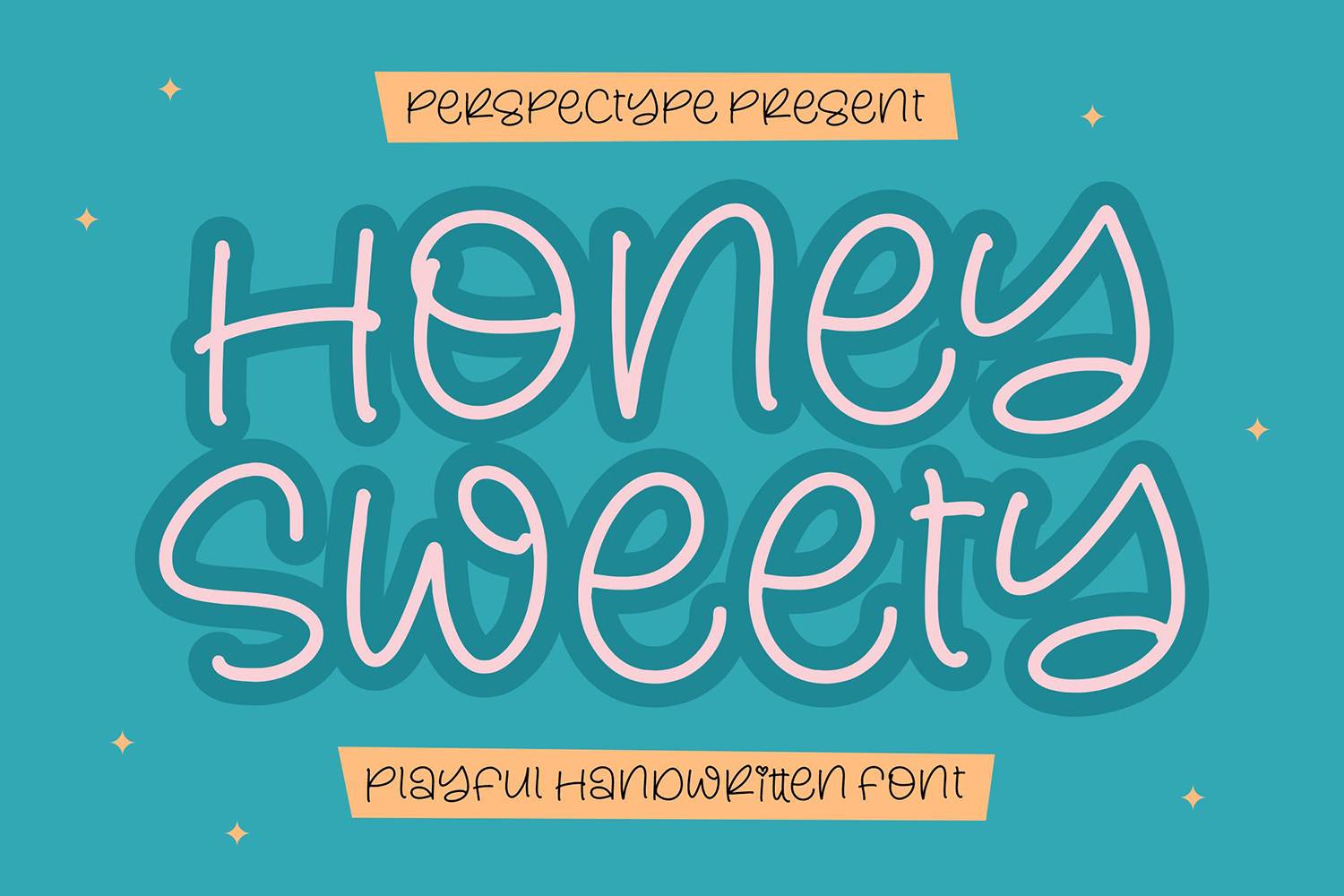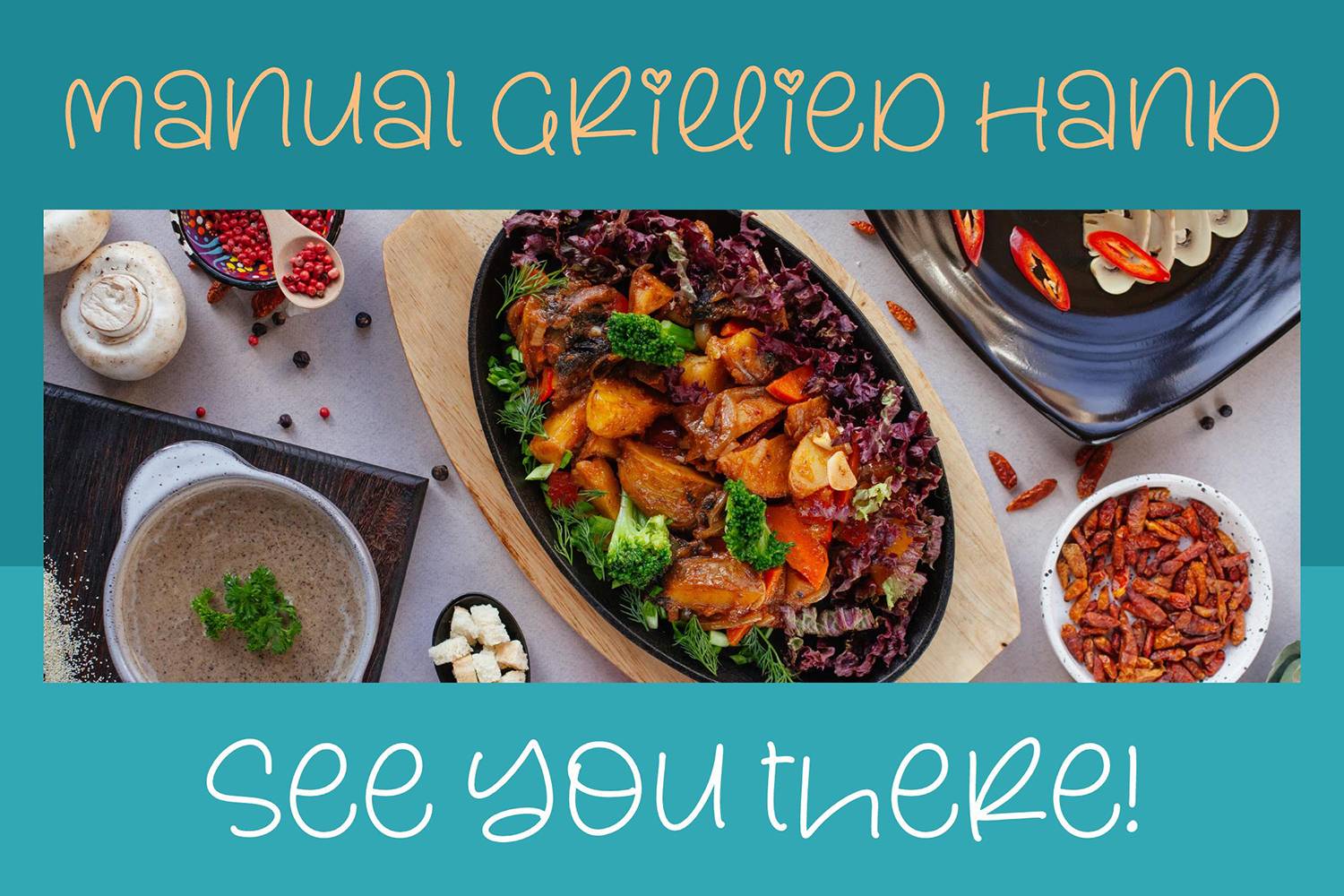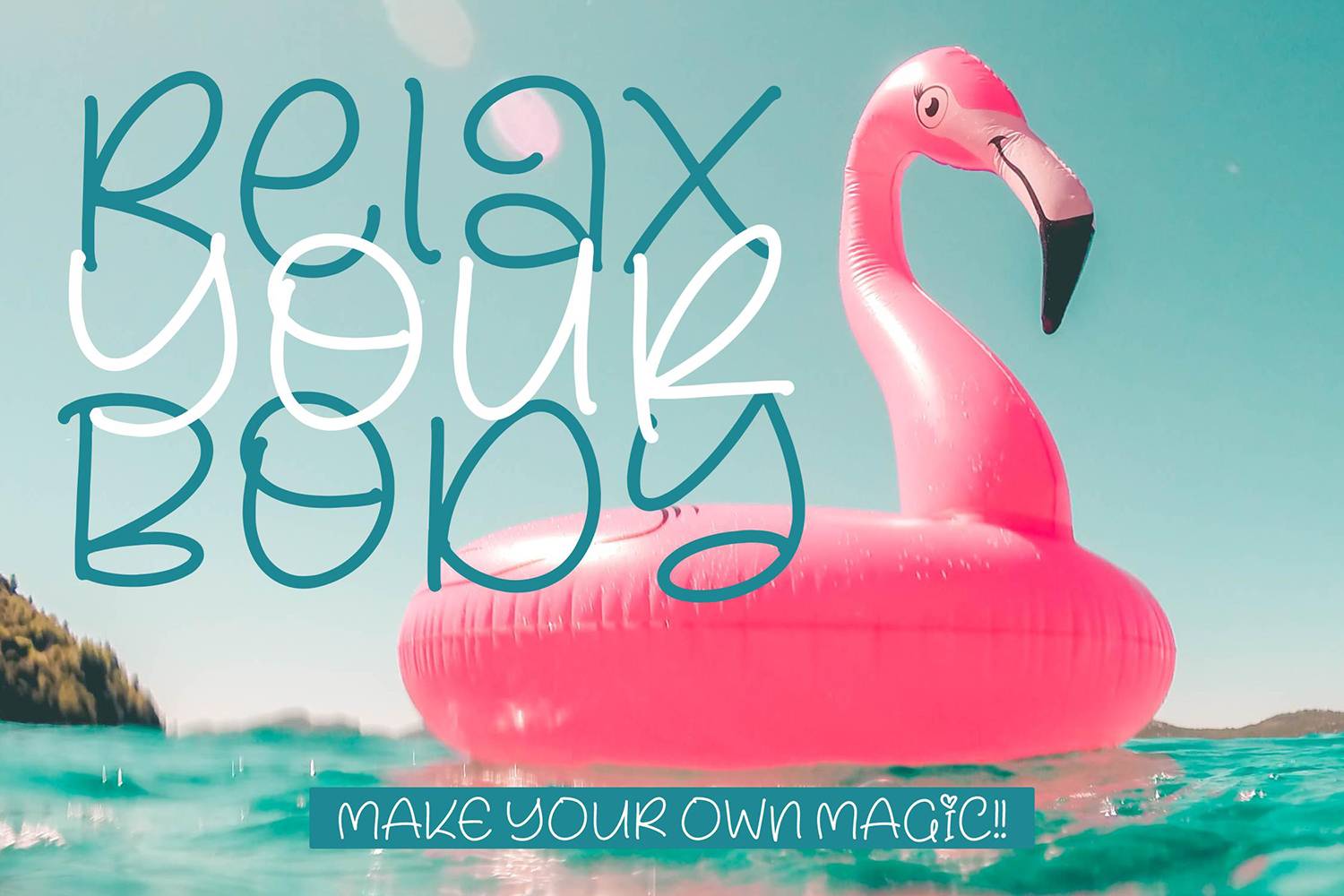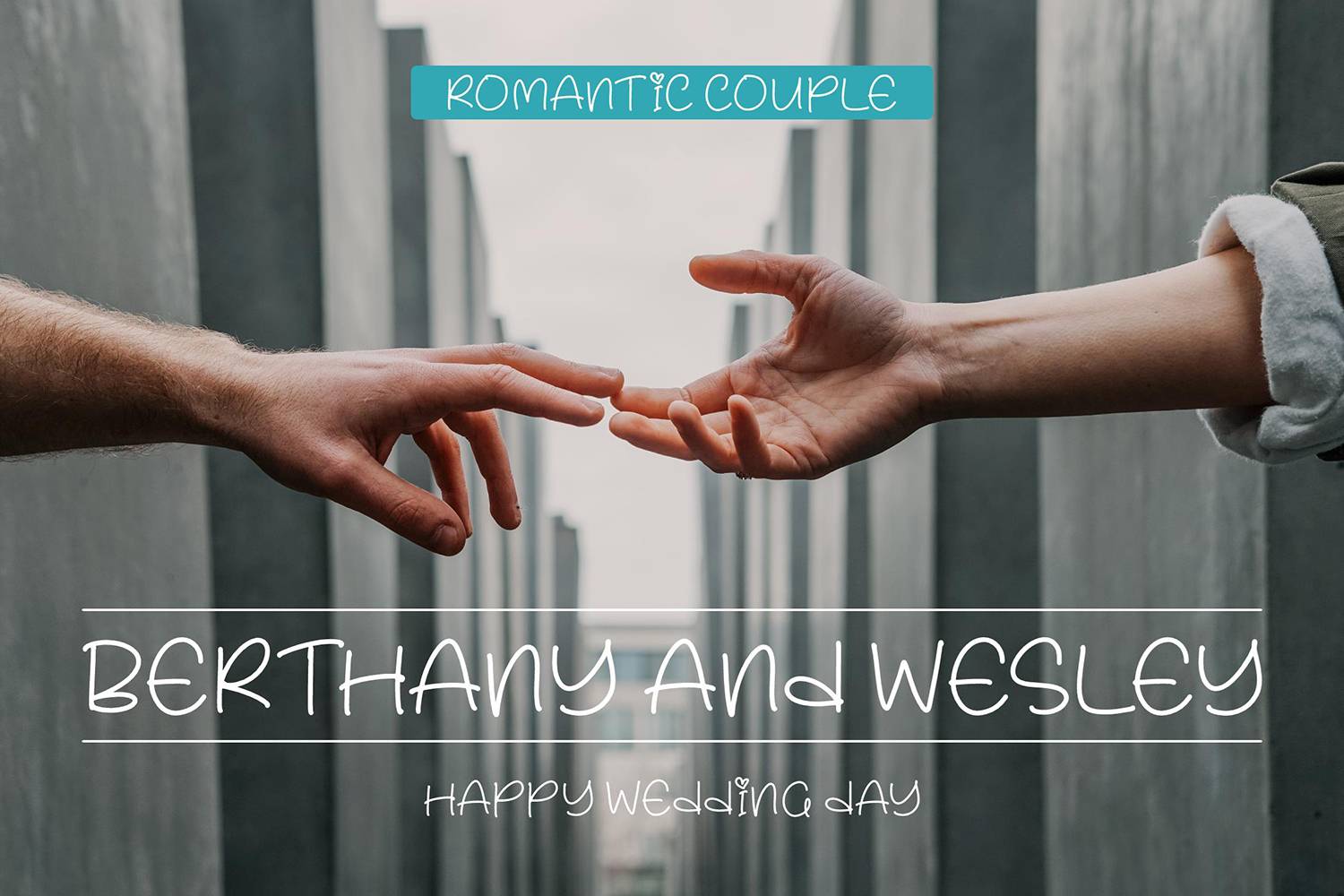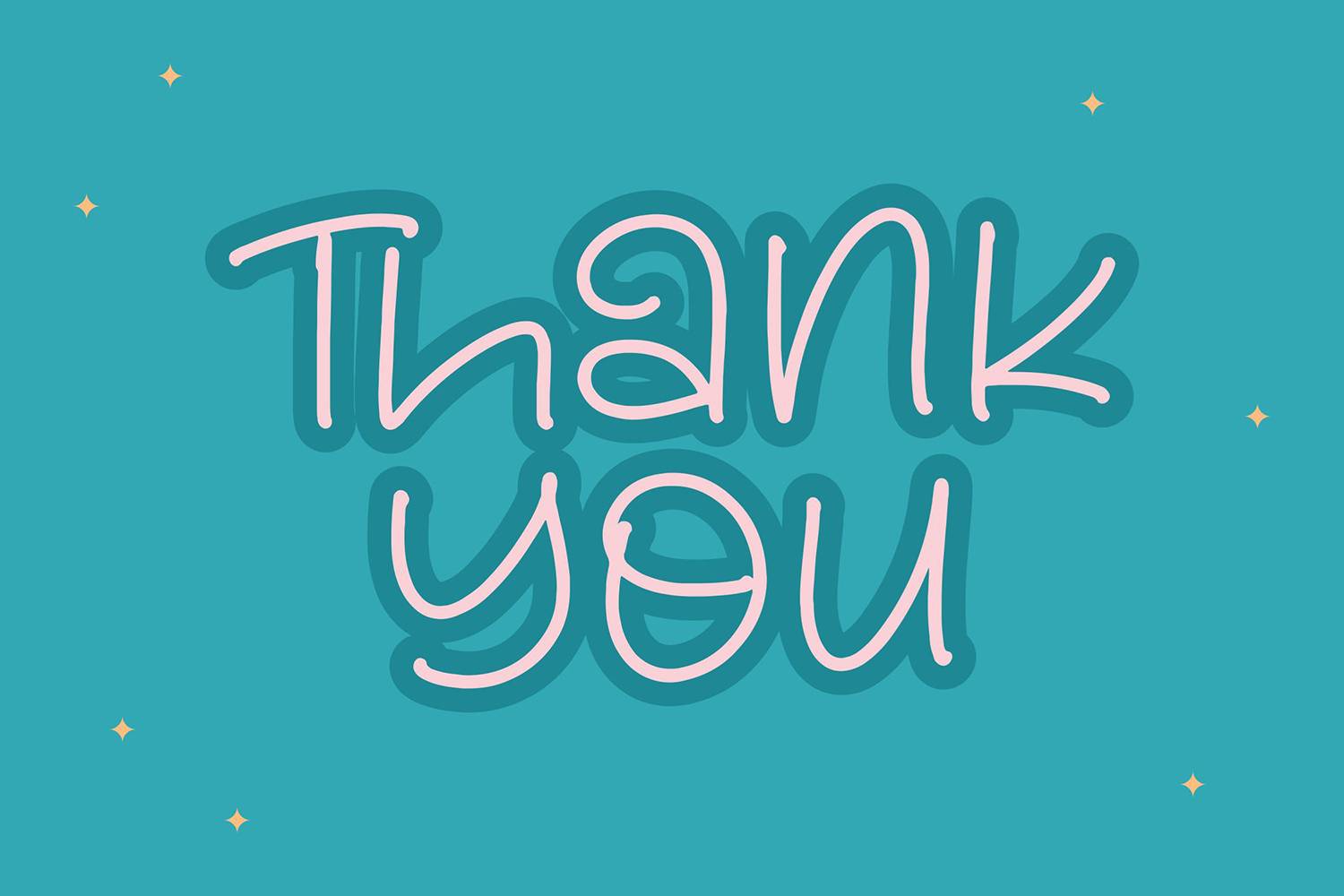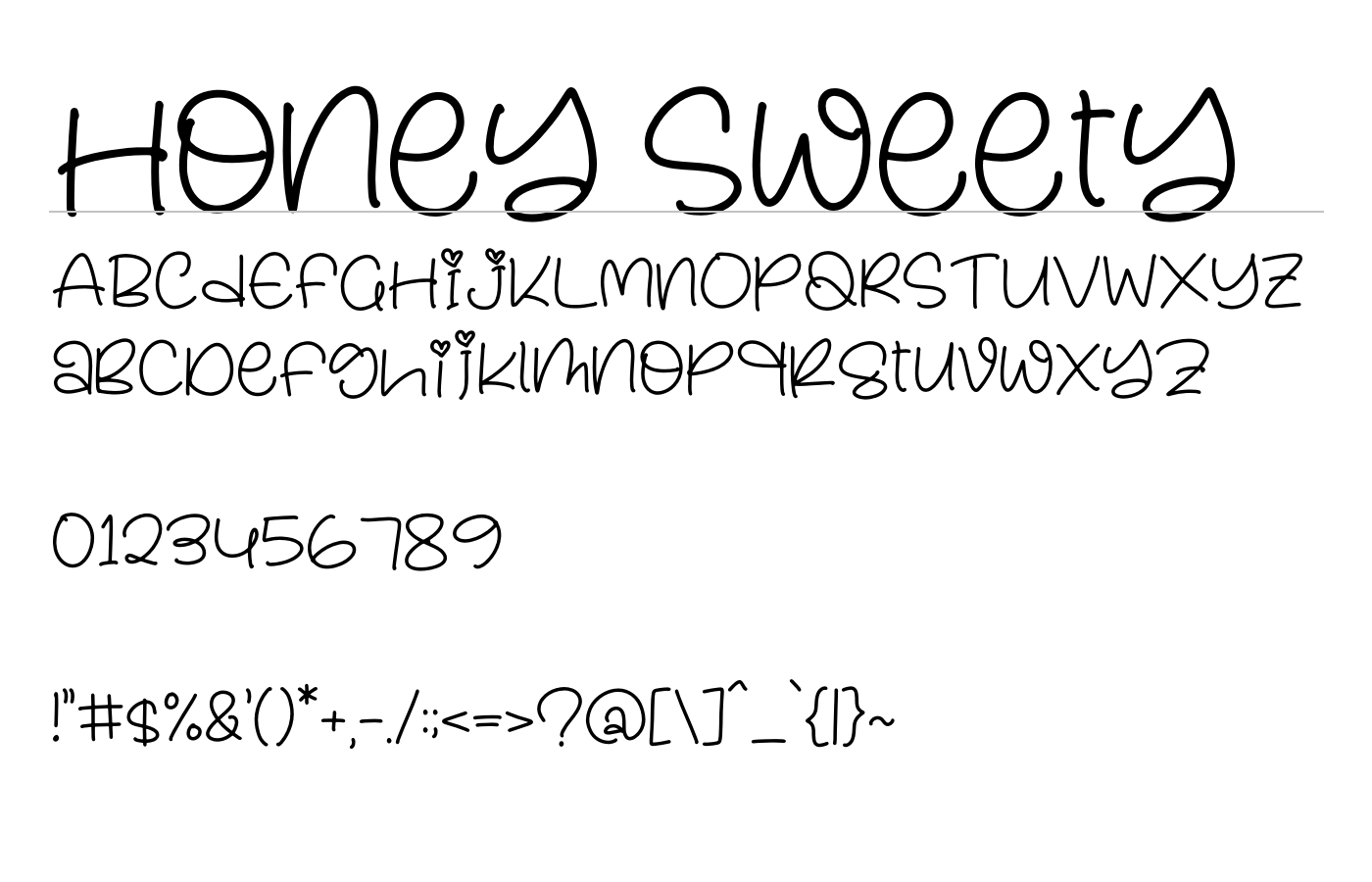
Honey Sweety is a playful and whimsical handwritten font with a light, airy feel, featuring delicate strokes and charming heart accents on some lowercase letters. Its casual, friendly style makes it ideal for creative projects like greeting cards, children’s invitations, or lighthearted branding that wants to convey warmth and approachability. This font works well in informal contexts where a personal and cheerful touch is desired.
Honey Sweety Font
About Honey Sweety Font